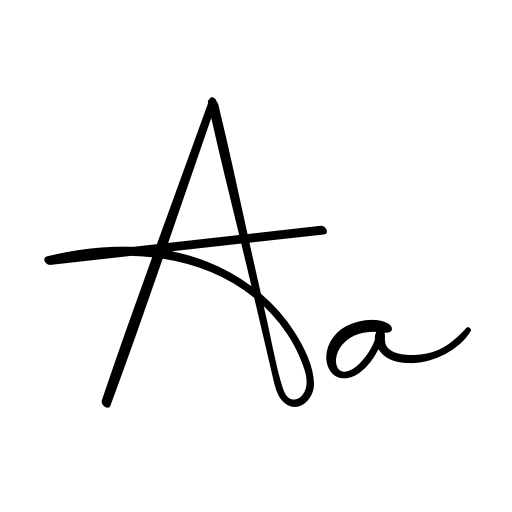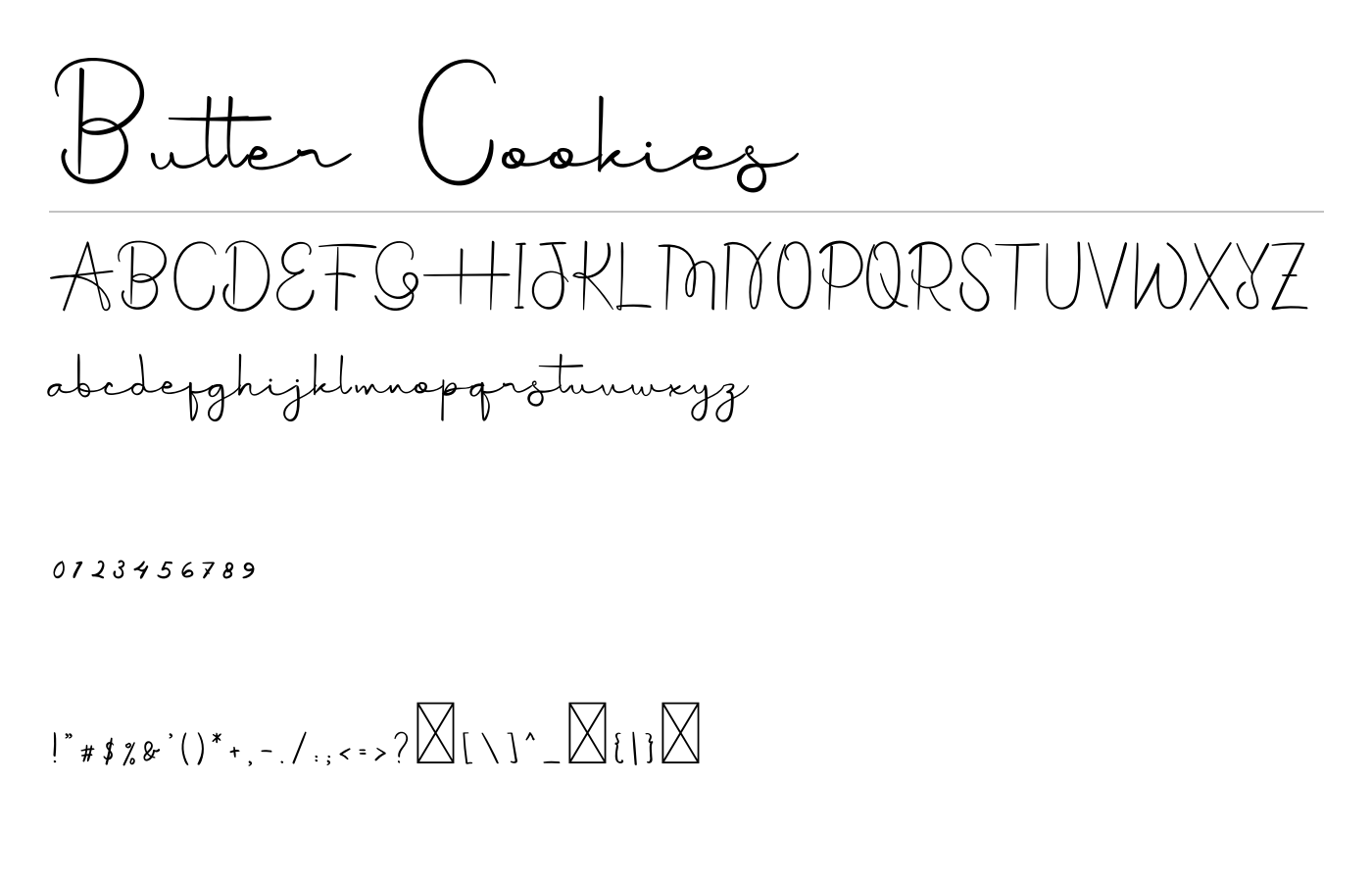
Butter Cookies is a playful and elegant handwritten script font featuring light, airy lines with a casual yet refined feel. Its tall, slender letterforms and slight irregularities give it a friendly, handcrafted charm, making it ideal for creative branding, invitations, and lighthearted editorial use where a personal touch is desired. This font works beautifully for projects that want to evoke warmth and approachability with a stylish flair.
Butter Cookies Font
About Butter Cookies Font